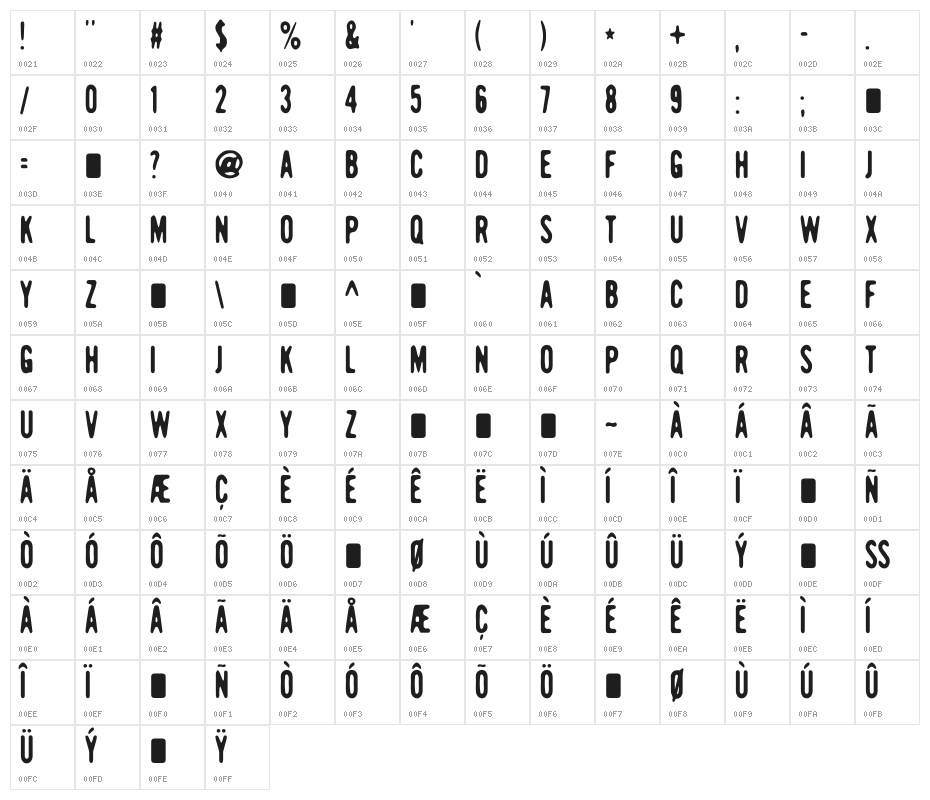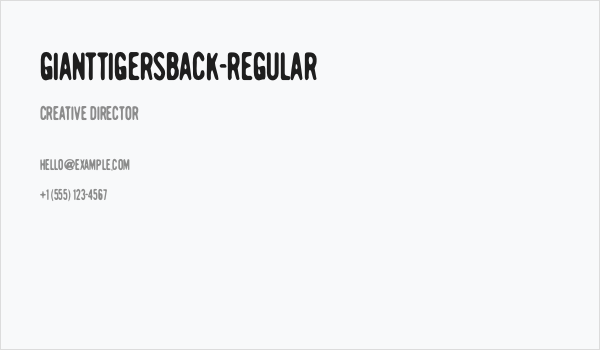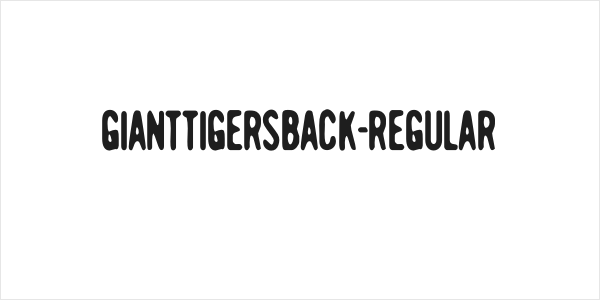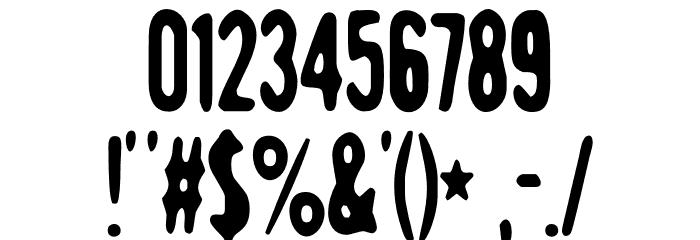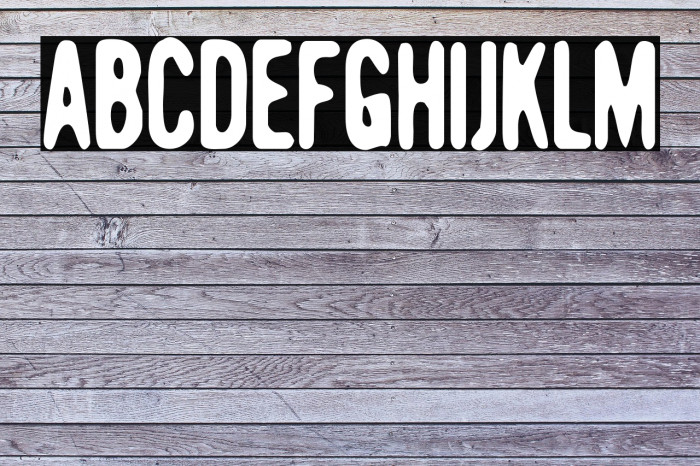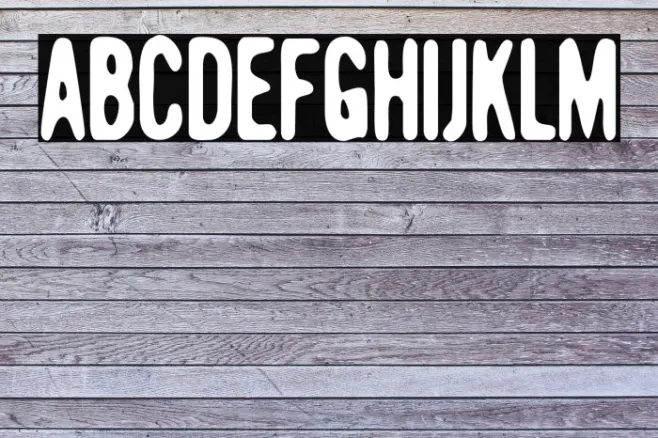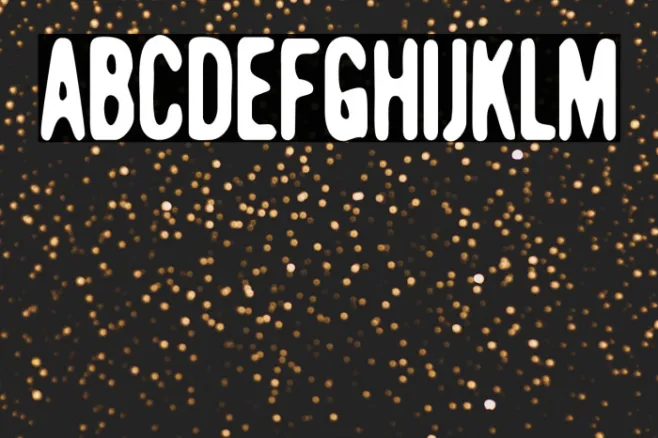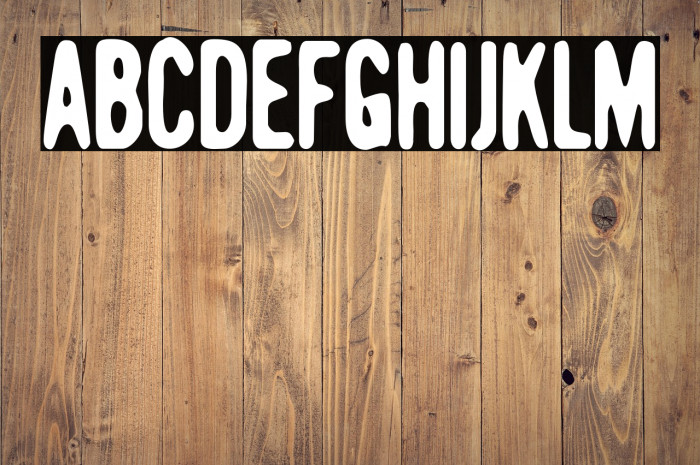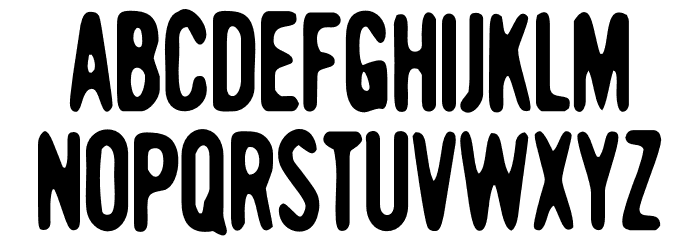
GiantTigersBack-Regular Font
GiantTigersBack-Regular Description
This font features bold, rounded characters with a playful and energetic style. The letters are thick and have a slightly irregular shape, giving them a hand-drawn appearance. The uppercase and lowercase letters maintain a consistent weight, contributing to a cohesive look. The numbers are equally bold and rounded, matching the style of the alphabet. Special characters are included, such as punctuation marks and symbols, which are designed to complement the overall aesthetic. The font's unique style makes it suitable for attention-grabbing designs.
| Overall Style | Playful, Energetic |
| Proposed Projects | Ideal for posters, children's books, playful branding, and creative projects. |